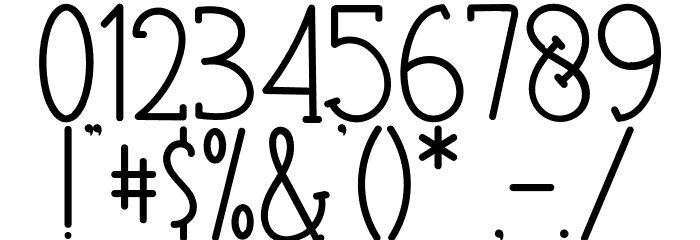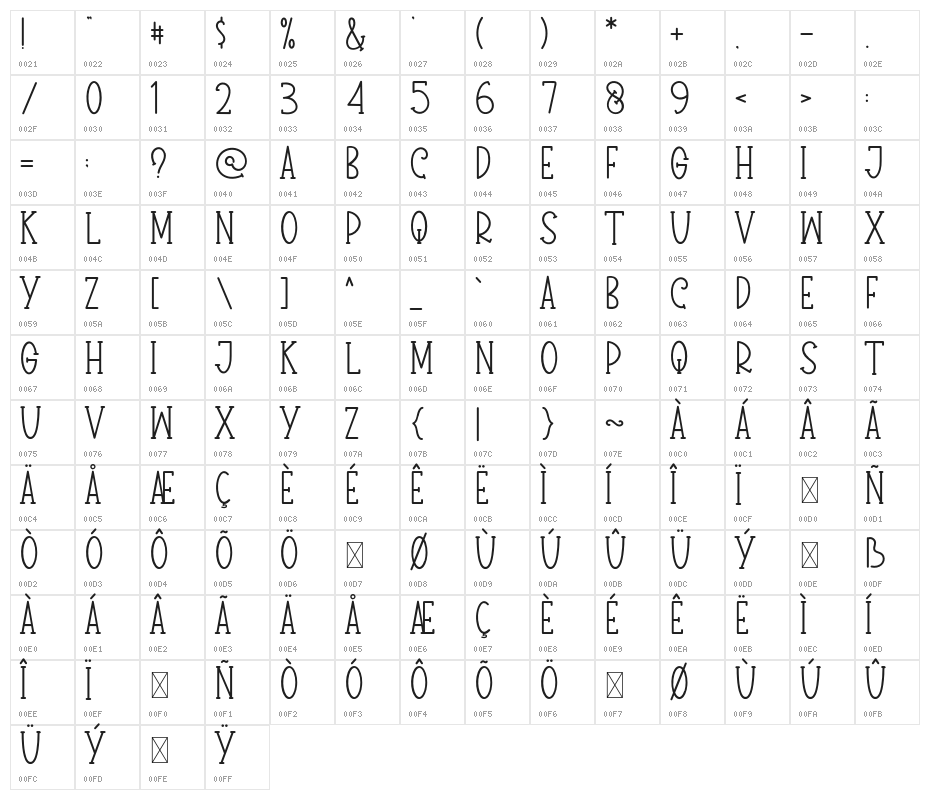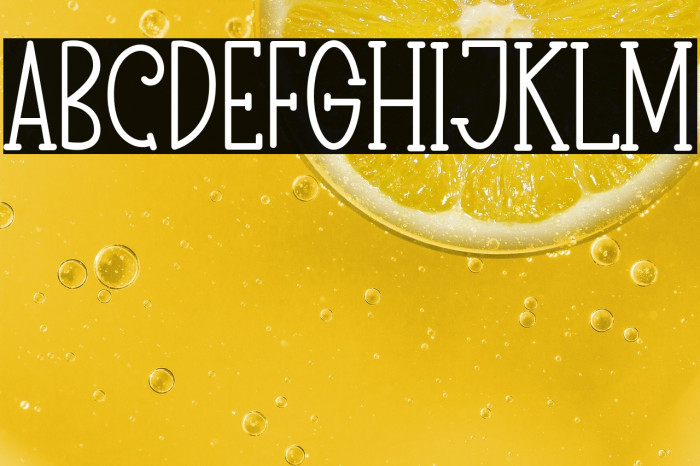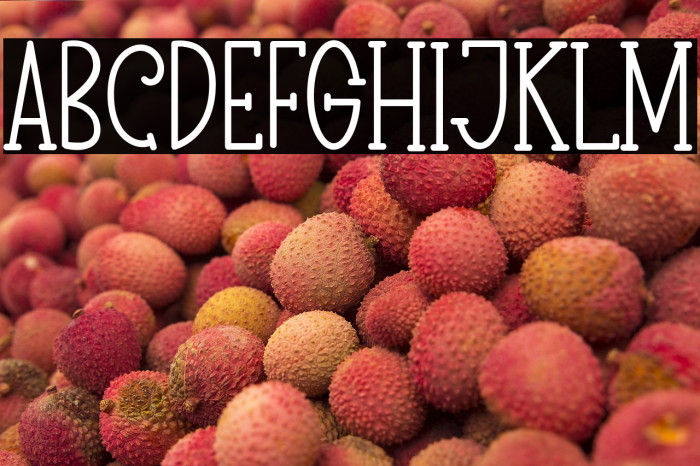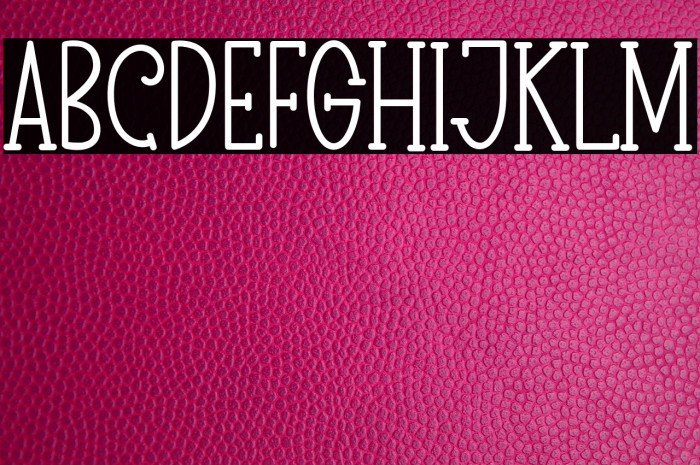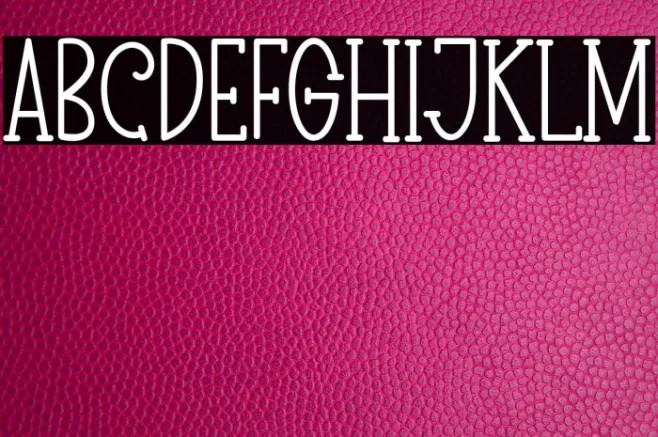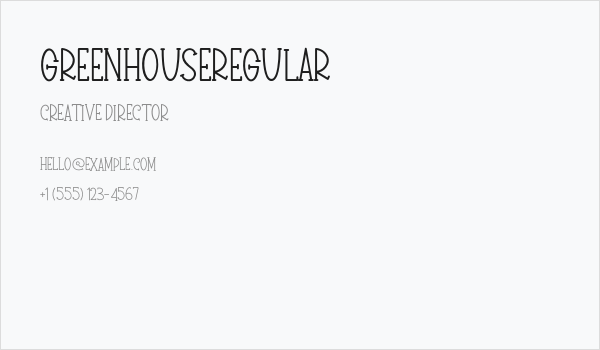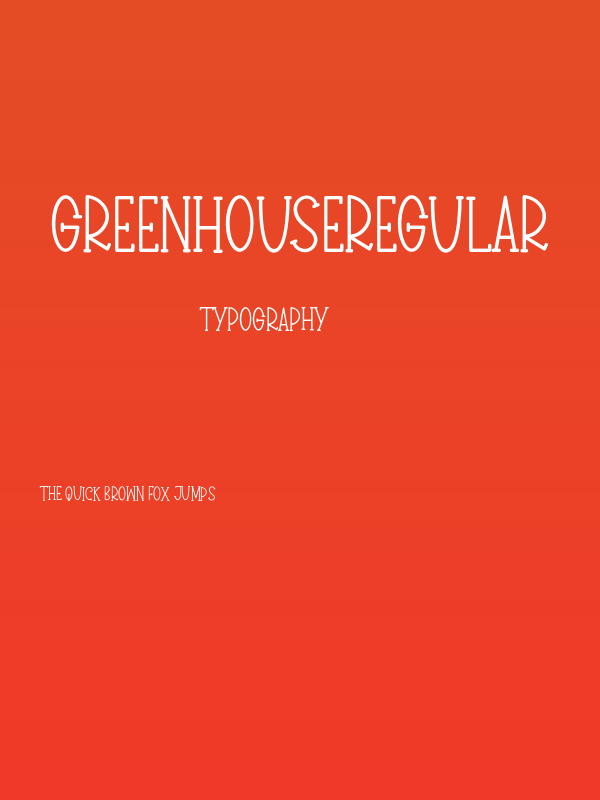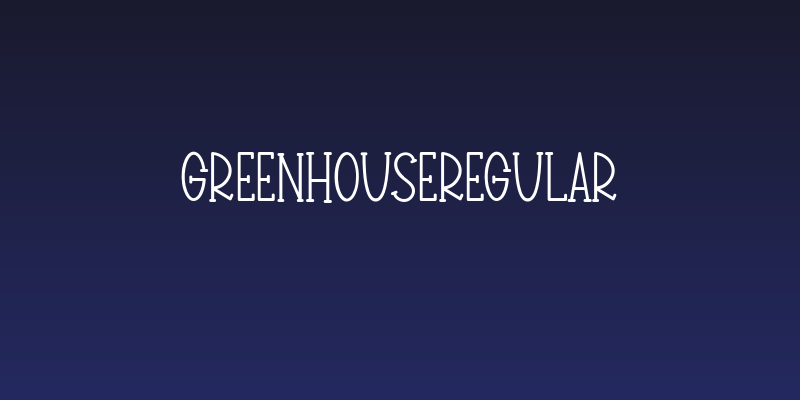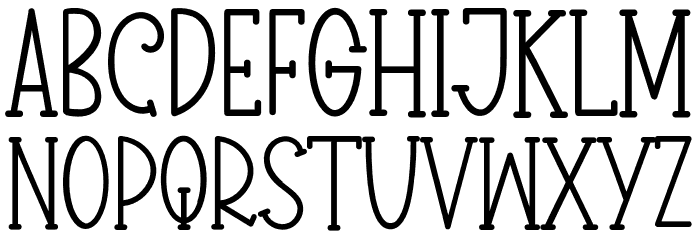
GREENHOUSERegular Font
GREENHOUSERegular Description
This font features a playful and whimsical design, characterized by its tall, narrow letters and rounded edges. The uppercase and lowercase letters maintain a consistent height, giving it a uniform appearance. The strokes are of medium thickness, providing a balanced contrast that enhances readability. The numbers and special characters are designed to match the overall style, with a quirky flair that adds personality. This font is suitable for projects that require a fun and informal touch, such as children's books, posters, or creative branding.